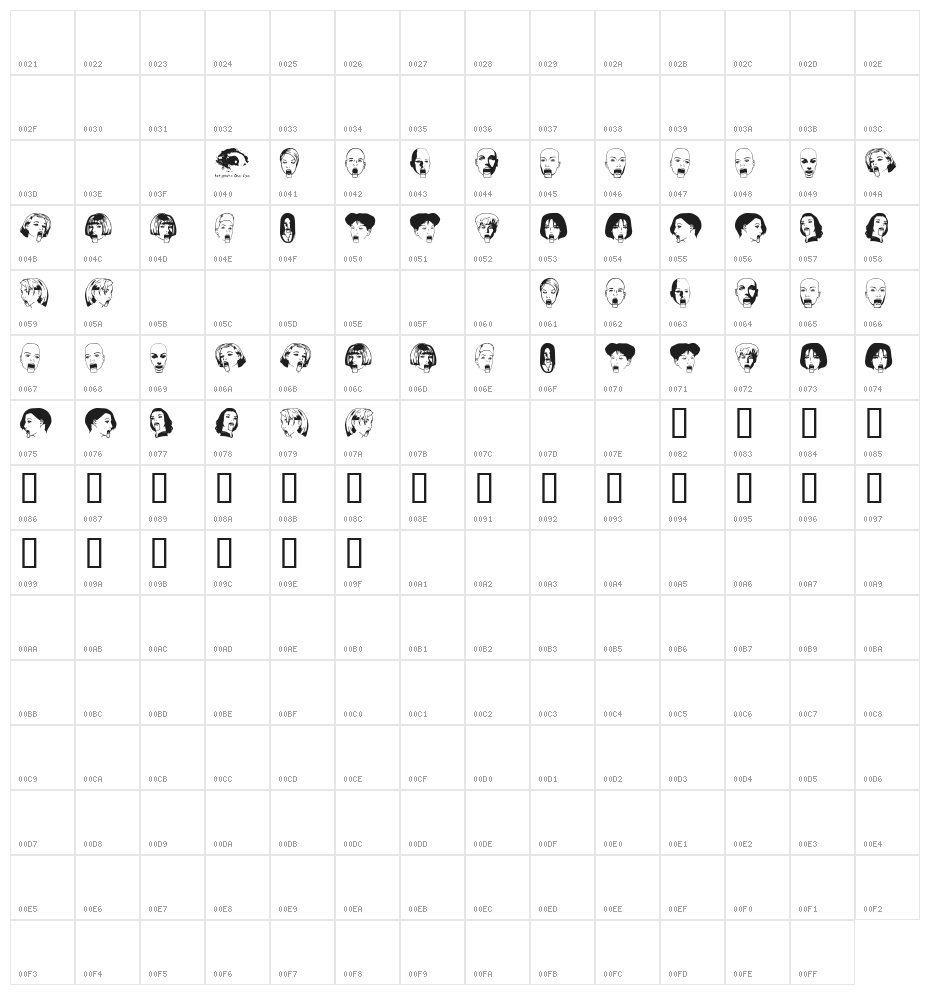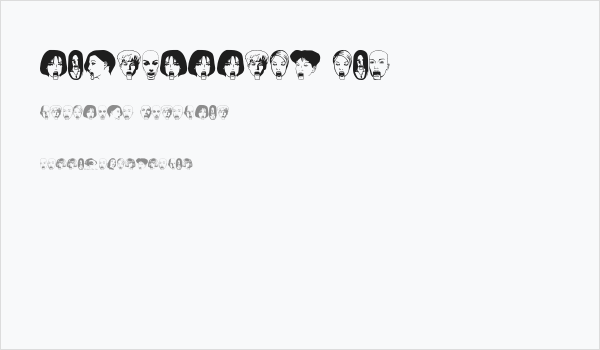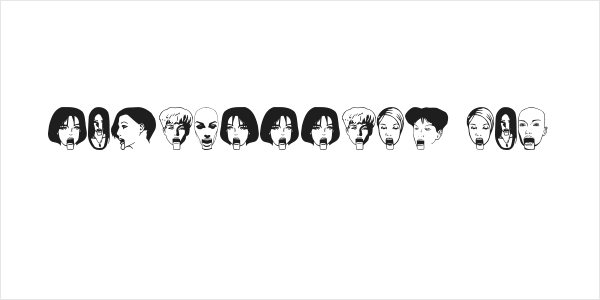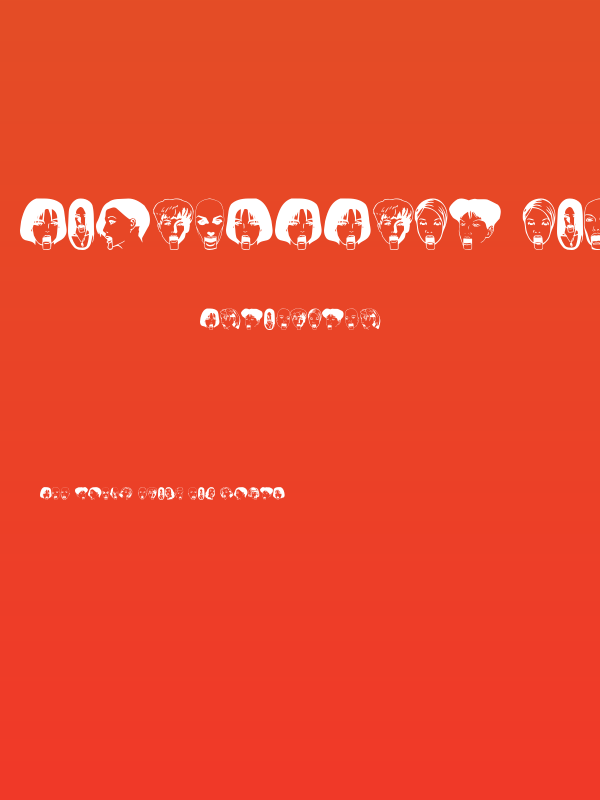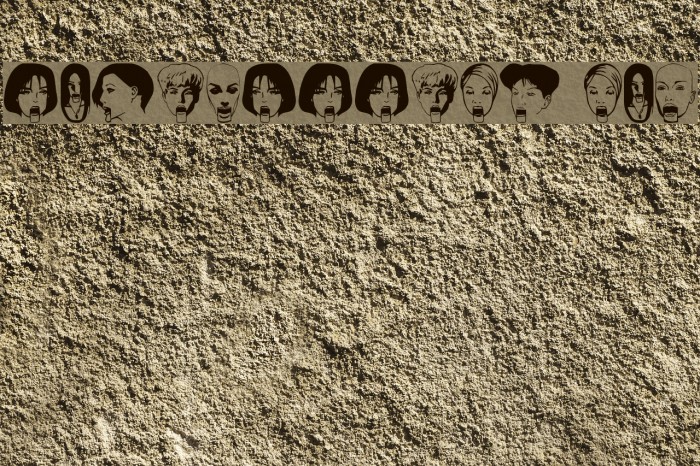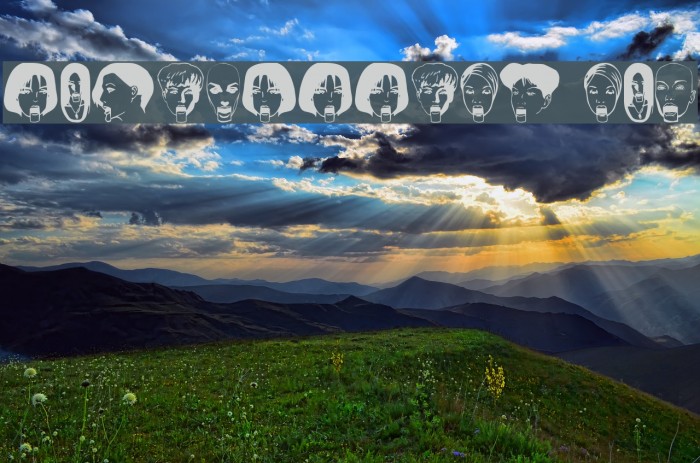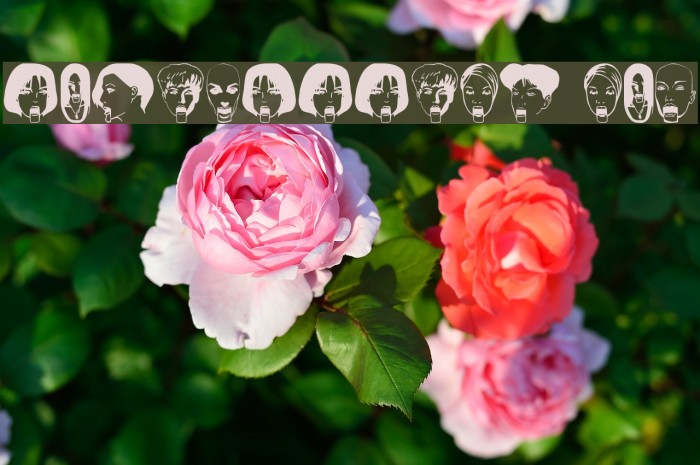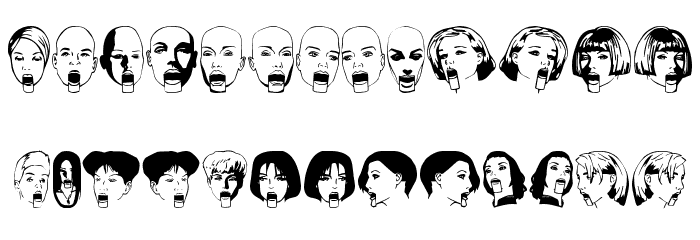
TouristTrap AOE Font
TouristTrap AOE Description
A highly decorative display font featuring expressive, illustrated faces for each character, with bold outlines and dramatic facial expressions. The characters are unique and visually striking, making each letterform a distinct portrait rather than a traditional typographic glyph.
| Overall Style | Decorative, Comic, Pop Art |
| Use Case | Headlines, Logos, Posters, Artistic projects |
| Proposed Projects | Posters, album covers, event flyers, comic book titles, novelty branding, art projects. |